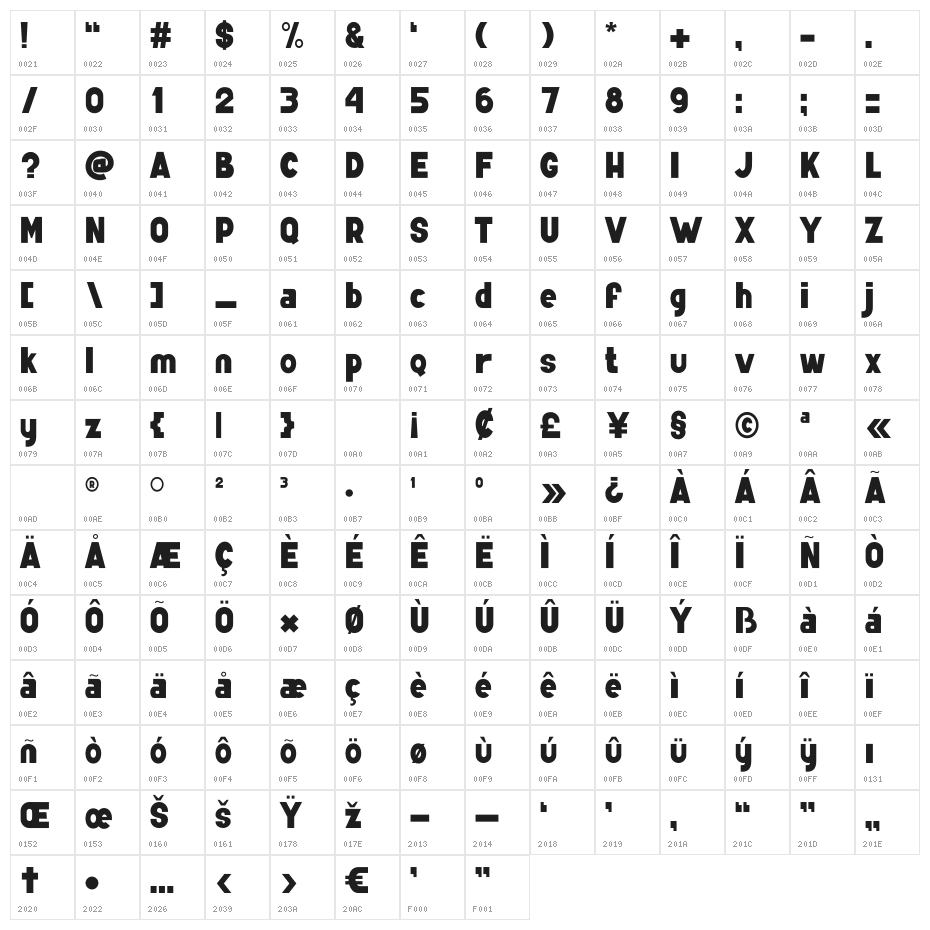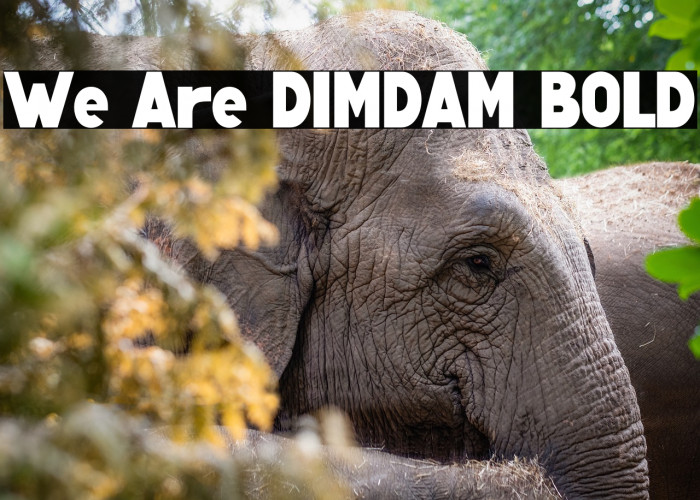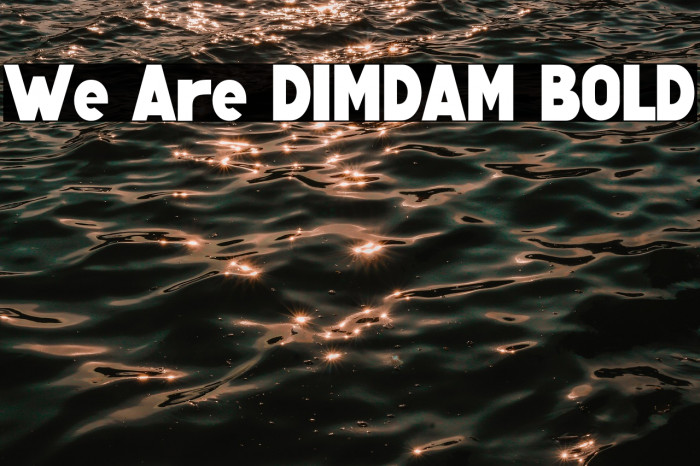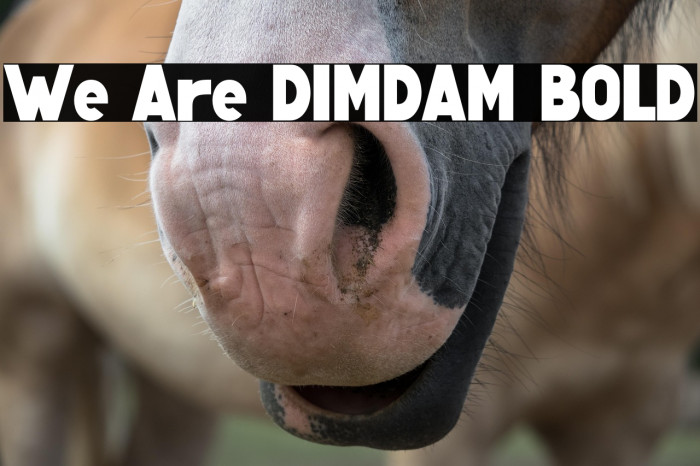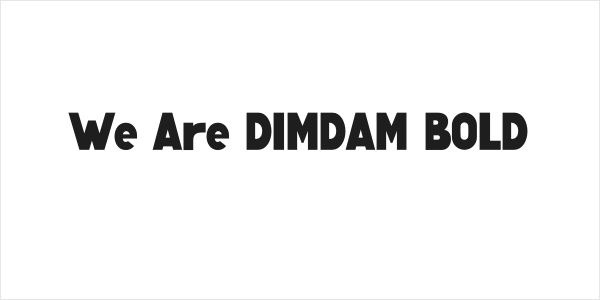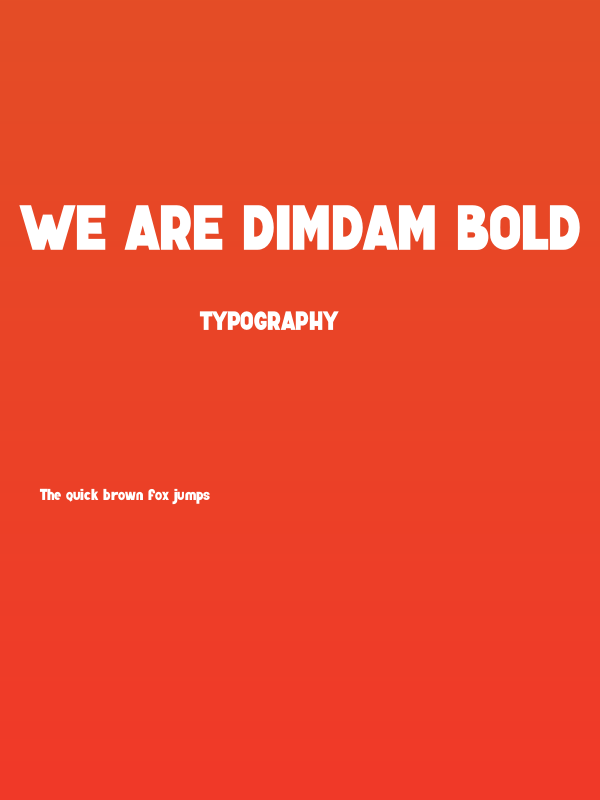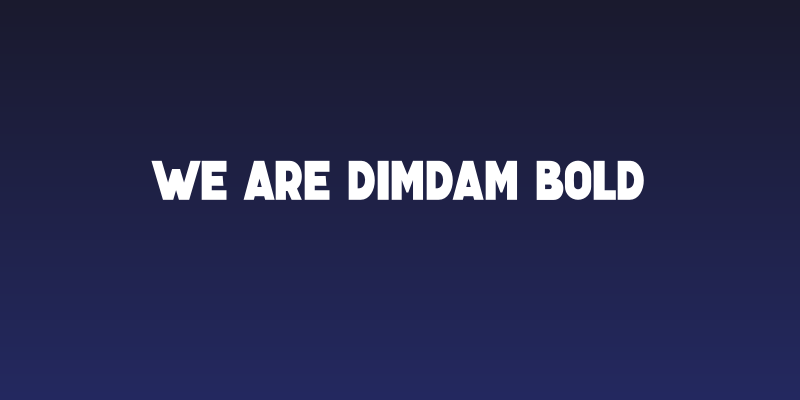
We Are DIMDAM BOLD Font
We Are DIMDAM BOLD Description
This bold, sans-serif typeface features strong geometric shapes and thick strokes, making it highly impactful and attention-grabbing. The characters are uniformly wide, with a consistent stroke weight that gives the font a solid and robust appearance. The uppercase and lowercase letters maintain a uniform height, enhancing readability and creating a cohesive look. The numbers and special characters are designed with the same boldness, ensuring they stand out equally. This font is ideal for making a statement, with its clear and assertive style that commands attention.
| Proposed Projects | Ideal for headlines, posters, branding, and any design requiring a strong visual impact. |